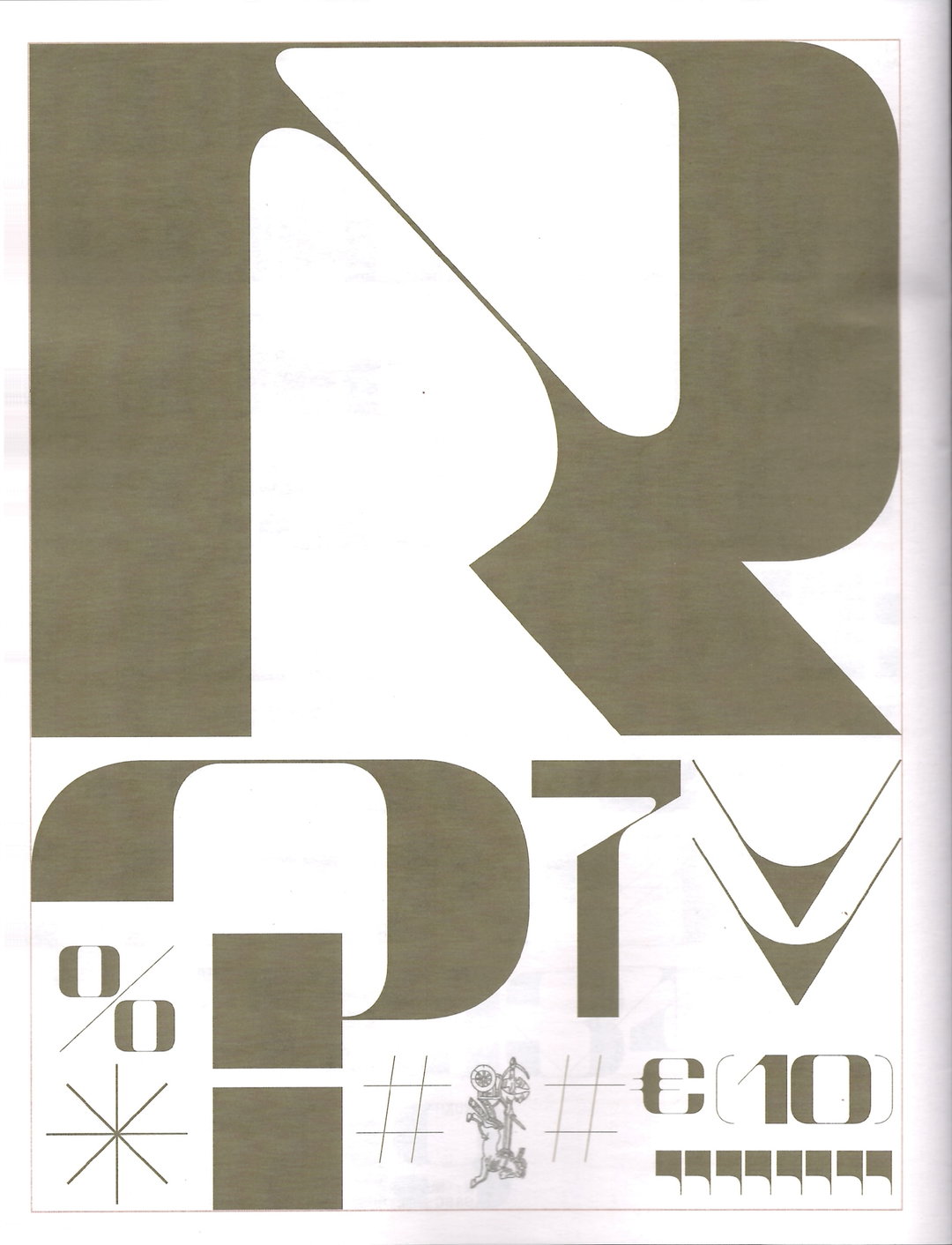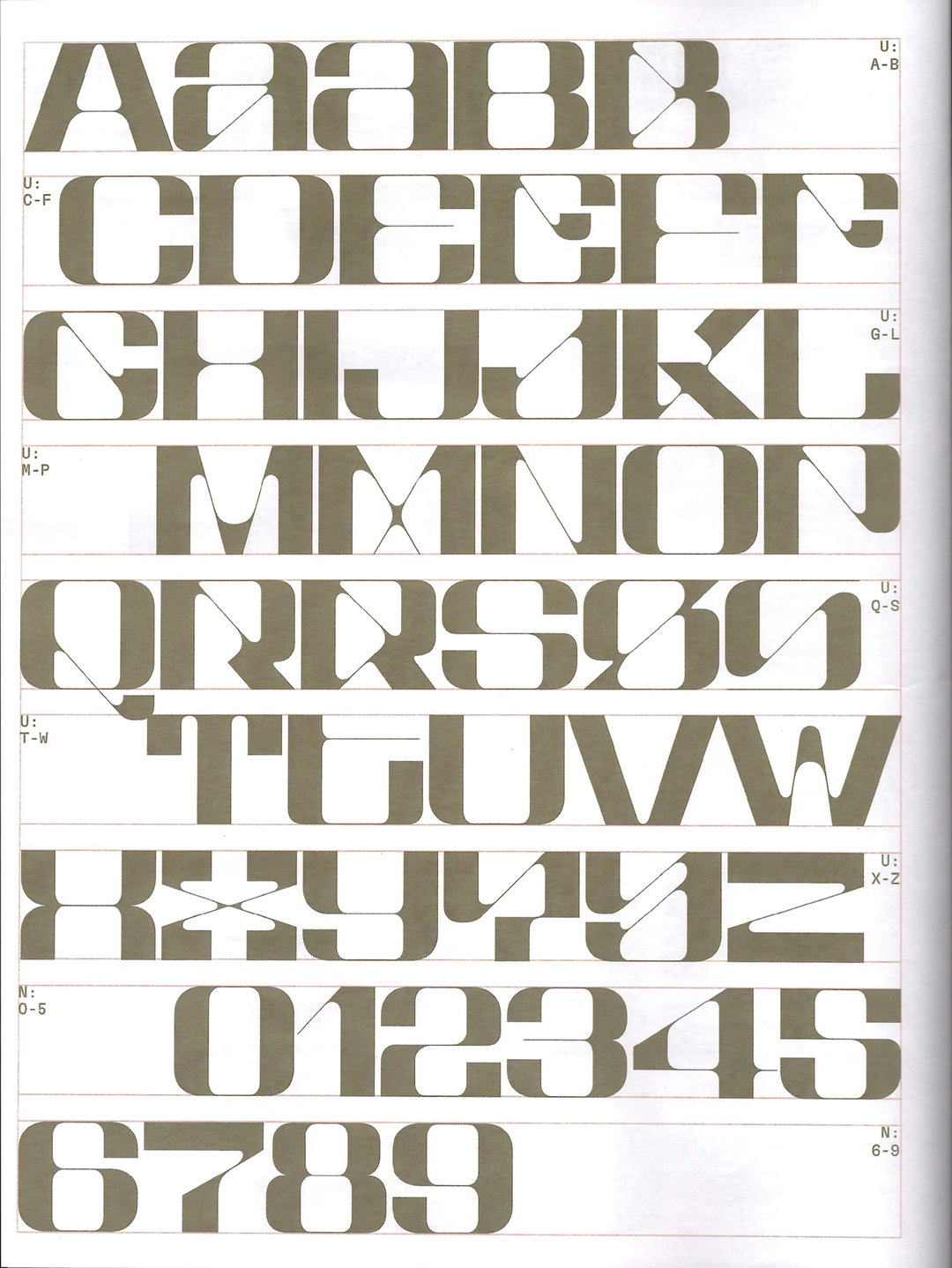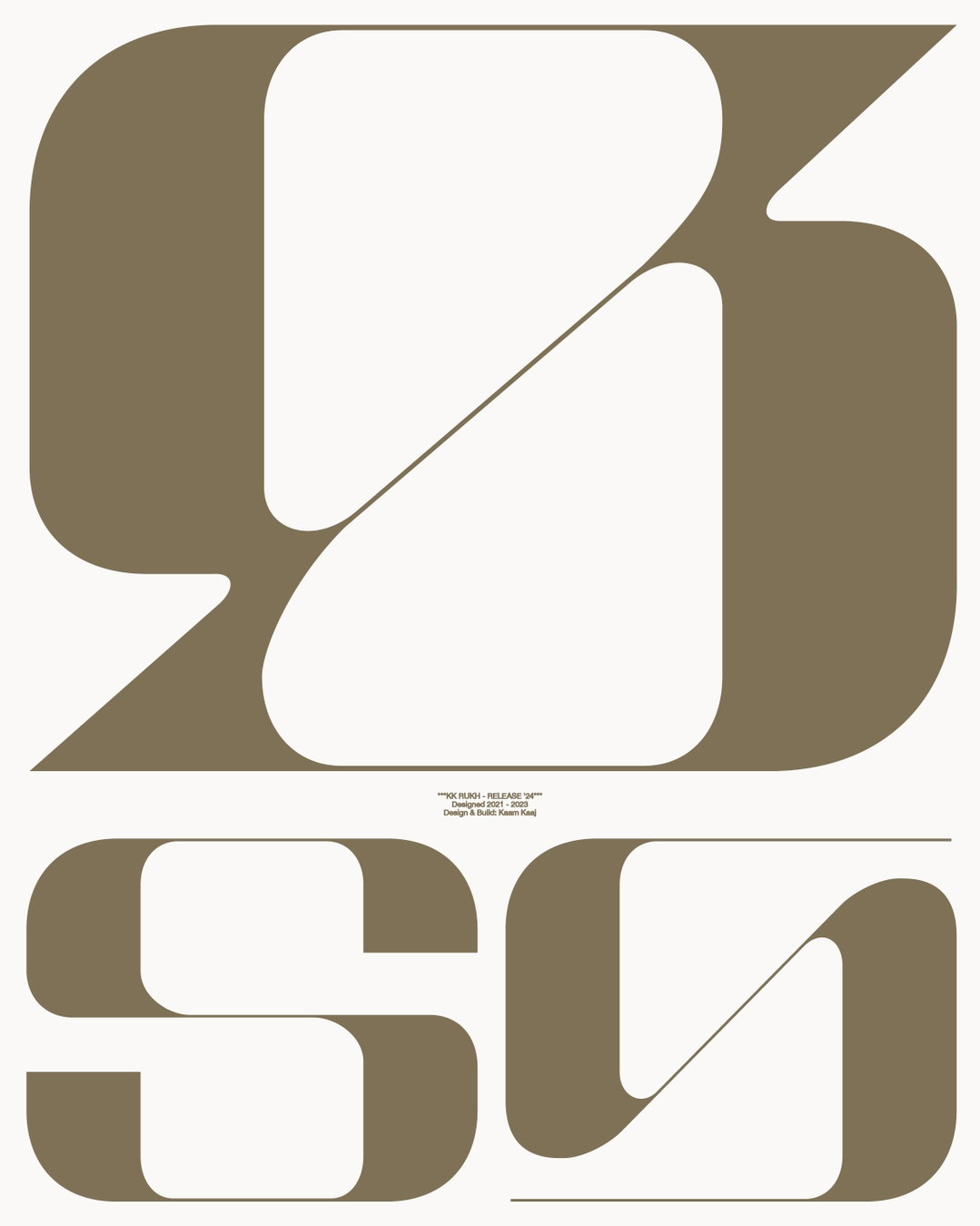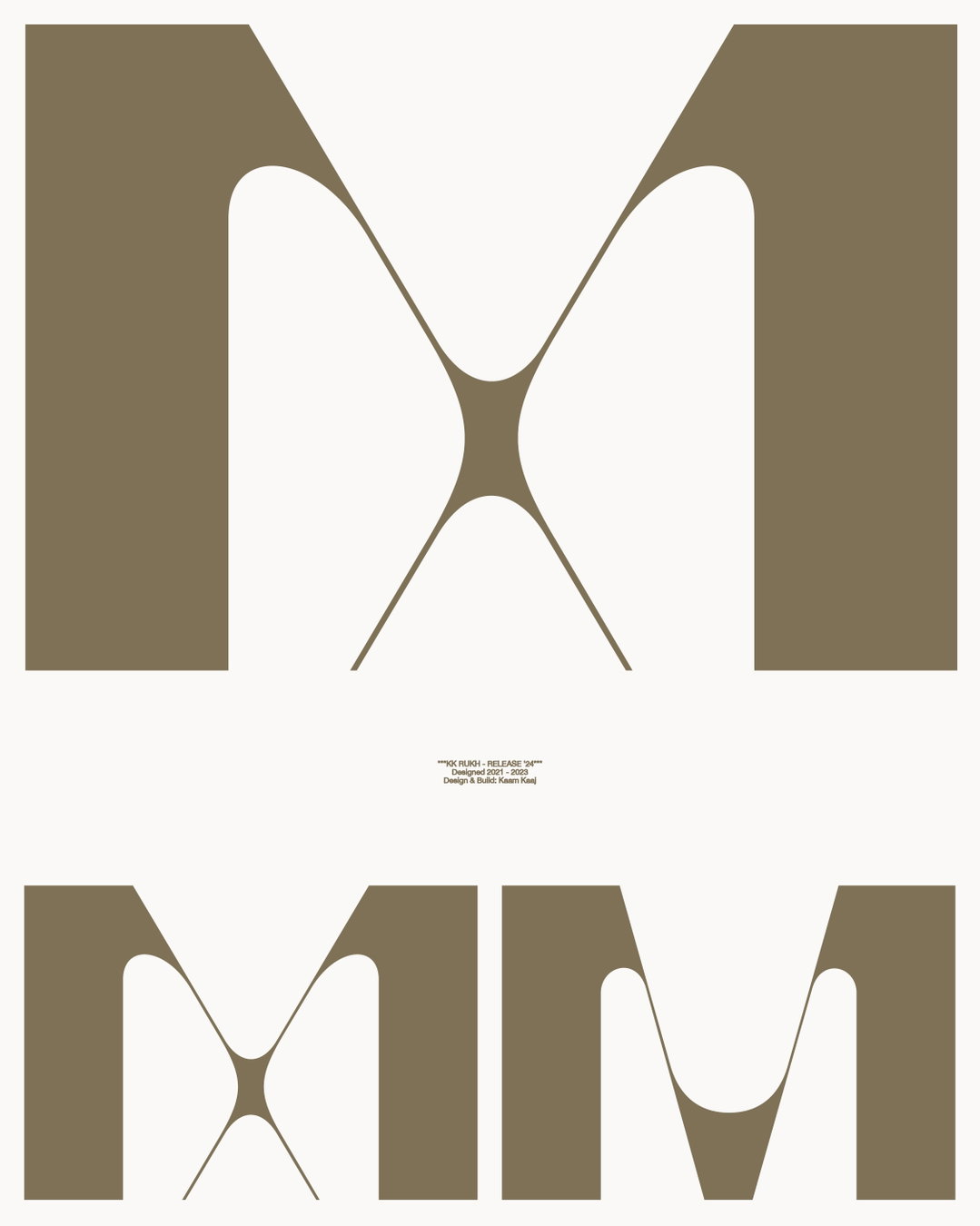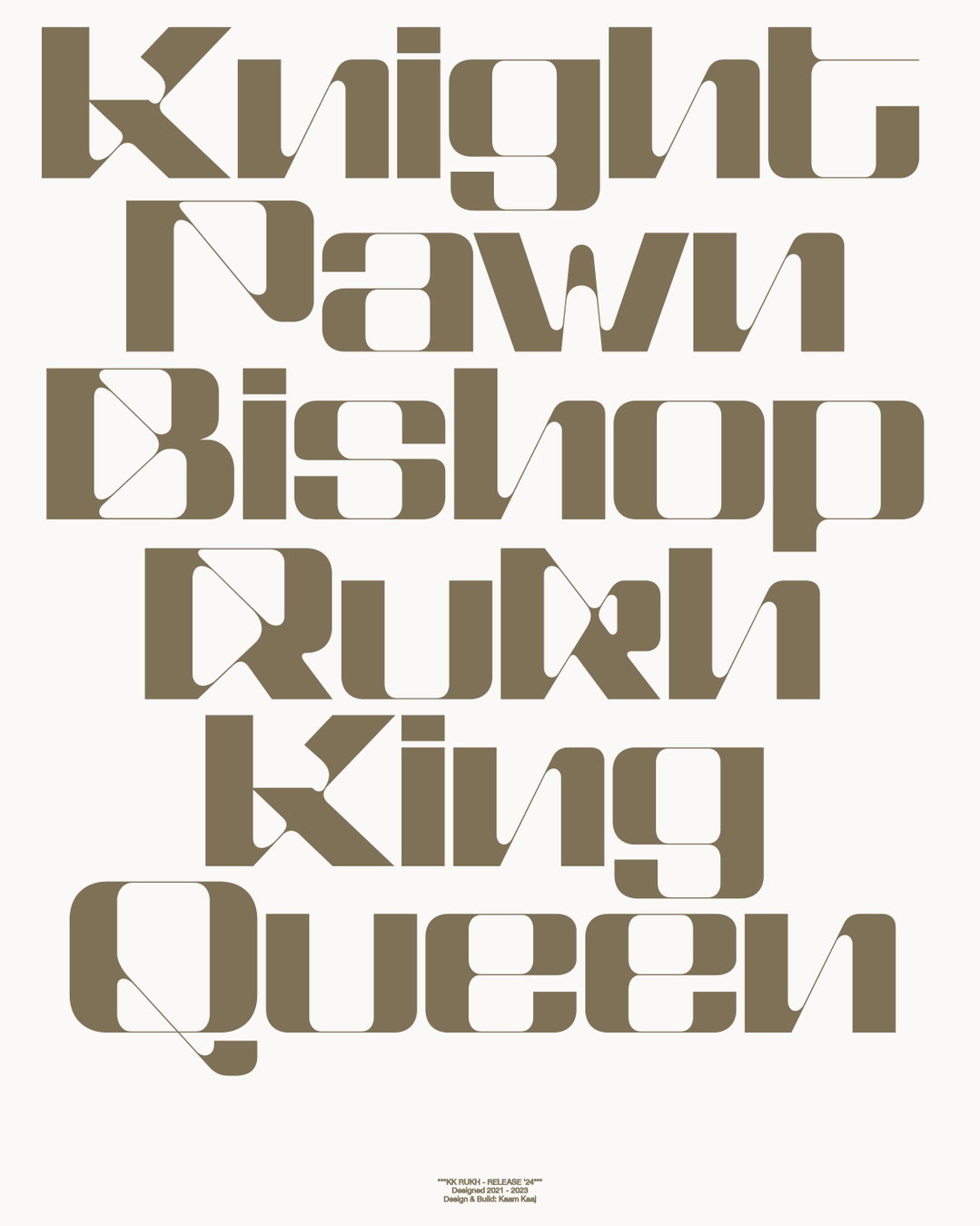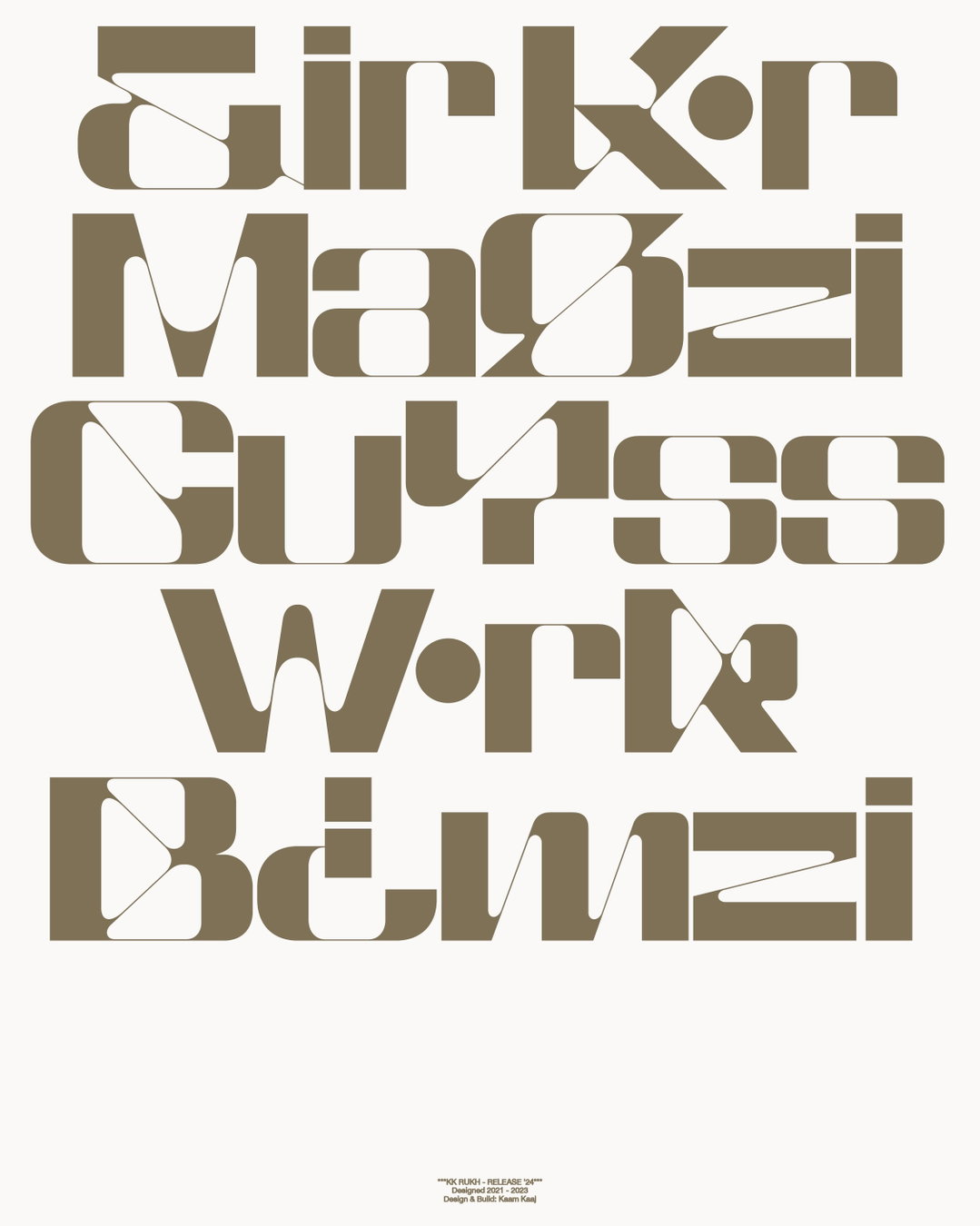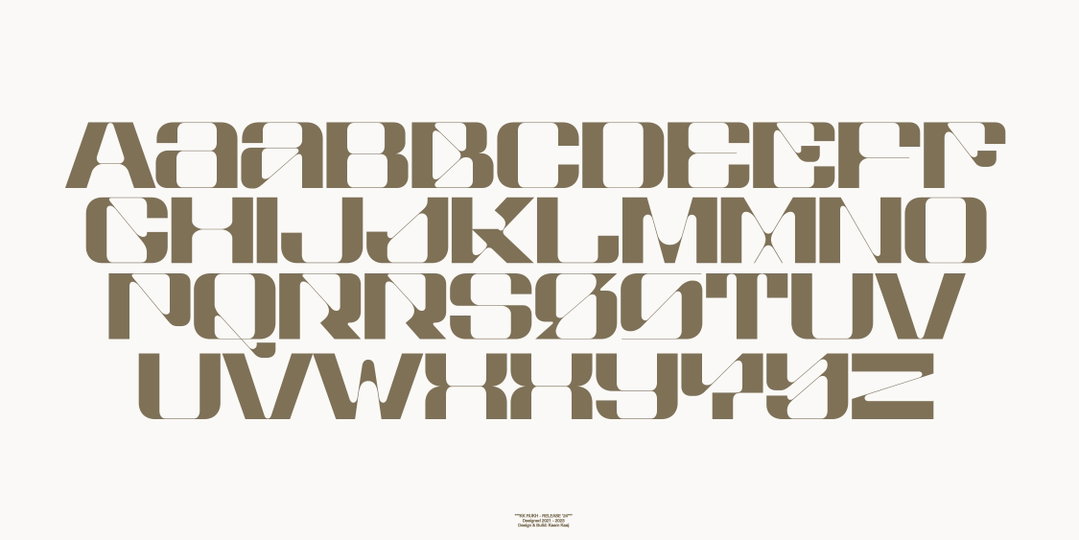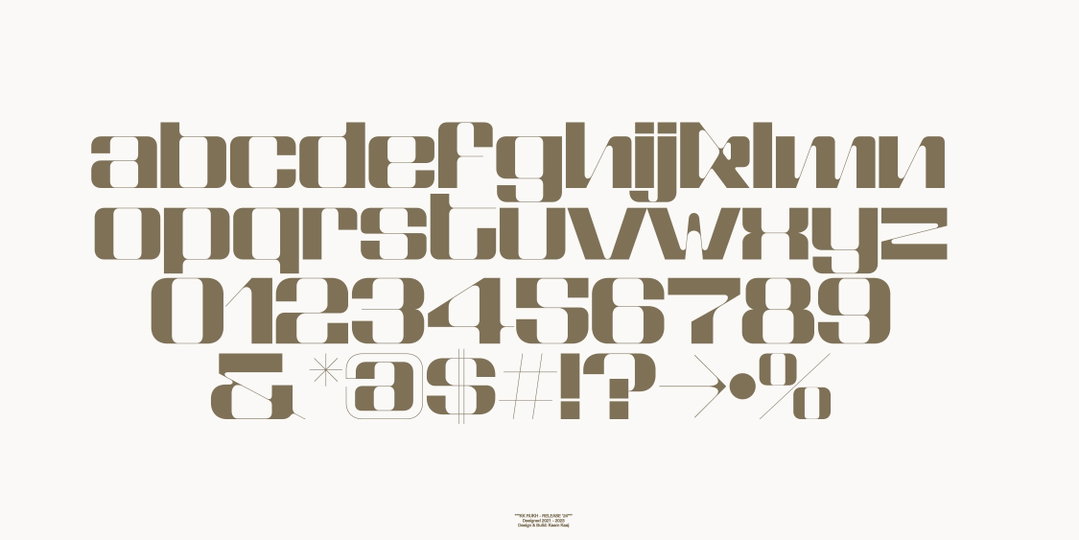
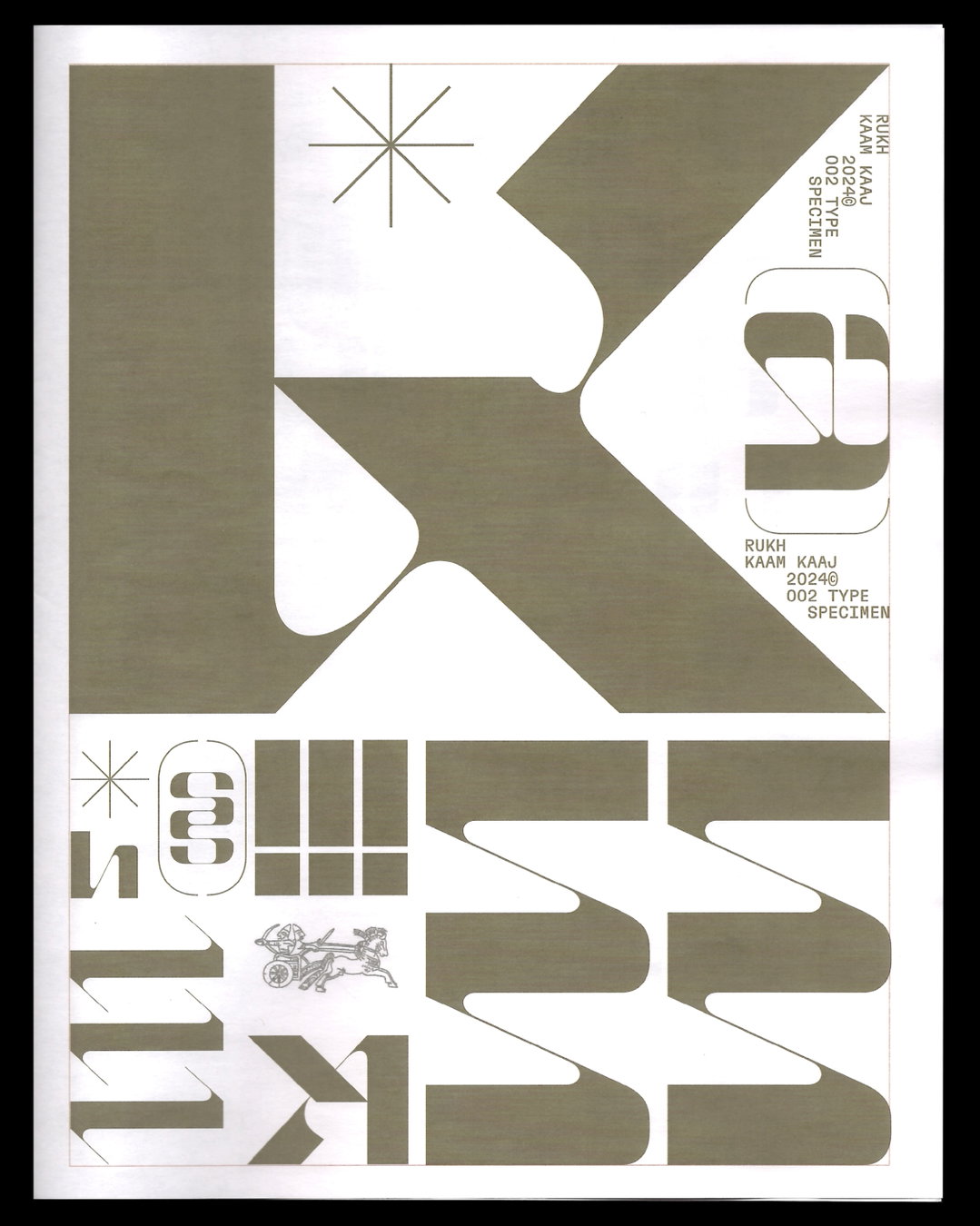
Named after the chariot piece in chess, Rukh is a typeface that represents tension
We speak to Mohammed Samad and Bouk Ra of Kaam Kaaj about the process of designing its typeface inspired by a plethora of cultural design references.
Three years ago, branding and typography studio Kaam Kaaj set out on a journey to create its typeface, Rukh. Starting out with the desire to just “make something” the team, made up of founder and designer Mohammed Samad, and type and graphic designers Bouk Ra and Joanna Domagalska, went through a cycle of working on it, forgetting about it for a few months and then picking it up again. But one day the team were encouraged to finish the typeface after a client mentioned seeing their work on Twitter (now X).“I was like ‘huh, Twitter?’ I didn’t know Twitter was a space for sharing graphic design work,” Mohammed Samad, tells us. “A design blog called Search System shared an early development of the typeface and through this I started to notice there was a demand for it,” he adds.
While growing up, Mohammed had little understanding of graphic design, but the visuals throughout music videos, film titling, gaming – “Tony Hawk’s SSX” – and specifically Nike’s Joga Bonito campaign, “with its mind-blowing short film and iconic logo,” all stood out to him. Also, an avid lover of skate culture and outdoor clothing, at 19 he tried to start a t-shirt brand, and that’s when he fully began to consider the elements of the medium. “Looking back there were a lot of elements that struck me. For example, the opening production house logo credits at the start of every Bollywood film,” he shares. “When we [Kaam Kaaj] create type or lettering there are many different ways to approach it, because we have a number of contrasting visual references,” he adds.
Mohammed says he “wouldn’t call myself a type designer, more a creator of bespoke lettering or type wordmarks,” he adds, “but since starting Kaam Kaaj I’ve been working with the brilliant graphic and type designer Bouk Ra”. One third of the studio, Bouk is responsible for much of the bespoke typography seen throughout their projects, which occasionally develops into a full typeface. His philosophy hinges on “making significant changes through small actions in his daily life,” Mohammed shares, “which is the same for him with type design”. When it came to Rukh they were interested in creating something that embodies tension – pushing the limits of contrasting strokes, investigating how thin it could be while still being visible, and toeing the line between the elegant details found in serif typefaces while giving it a modular sans serif structure.
Named after one of the early forms of chess, Shatranj (the origins of which can be traced back to the ancient Indian board game chaturaṅga), Rukh is defined as being the chariot piece. “We loved the relationship between the tension of the chariot and the tension in the typeface,” Mohammed tells us. Having imagined the typeface to be used for the cinema, the team also delighted to see it pay homage to the Bollywood film star Shah Rukh Khan, in its naming. With major references and visual references, also came great challenges in making it functional. When starting out, as Mohammed was the sole designer on the project, there were certain elements that he didn’t consider. “The initial designs of particular characters were very creative and intriguing, however using that as a foundation and consistently creating the remaining characters while maintaining the distinctiveness of each letter was challenging,” Bouk adds.
Among the distinctive character of each letter, the team also found it challenging to find the right amount of time to work on it alongside client deadlines and other projects. But maybe Rukh stands out so much because it has been slowly developed over time. With hopes to develop more typefaces – one of them being Rukh 2.0 – and see this one used for “some film titles so we can see it on the big screen,” Kaam Kaaj show us that whether cultural or contrasting, our visual inspirations may initially bare a complication to the design process, but after time and consideration, they can create something epic.